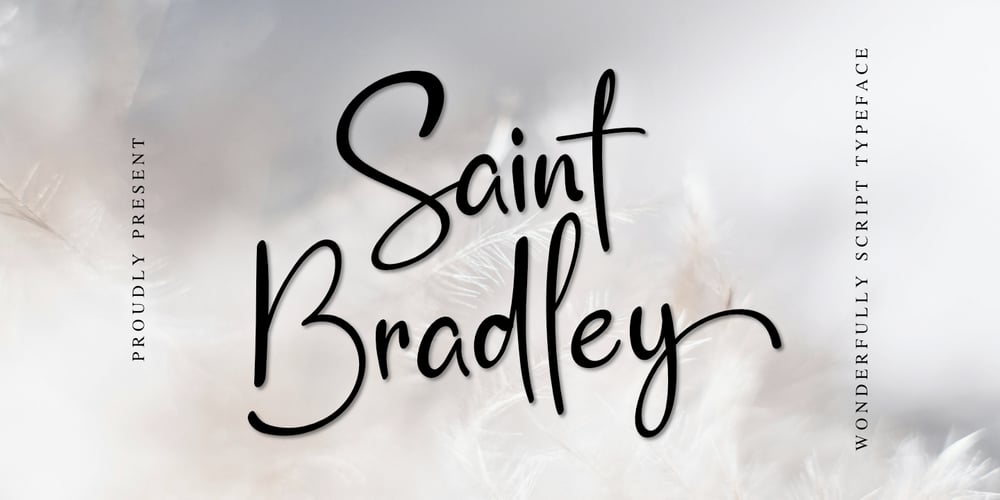
Saint Bradley Font Family was designed by Andi Kaisar and published by Violatype. Saint Bradley contains 1 styles and family package options. Introducing “Saint Bradley” is a simple and cute handwriting font, there are two tails on the right and left sides that you can use to make your design even more beautiful.Saint Bradley was created using hand strokes to produce a natural font shape.If you have any questions, don’t hesitate to contact us